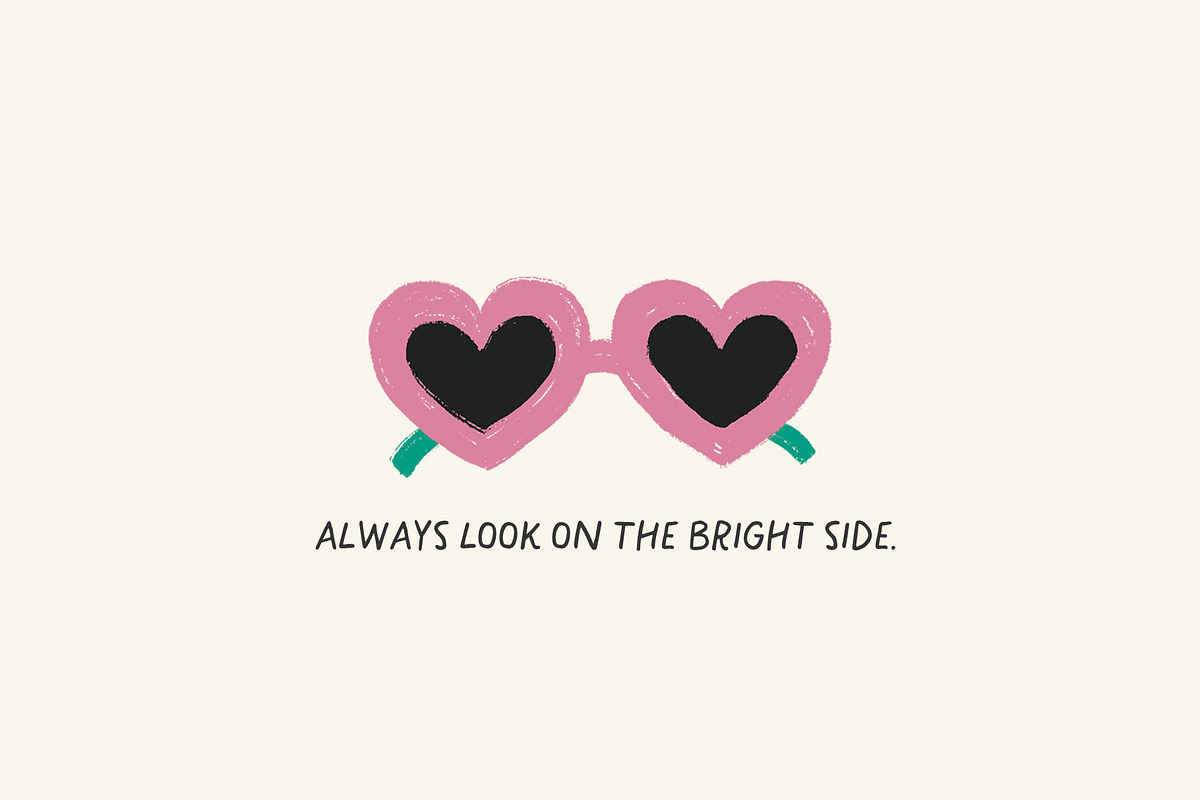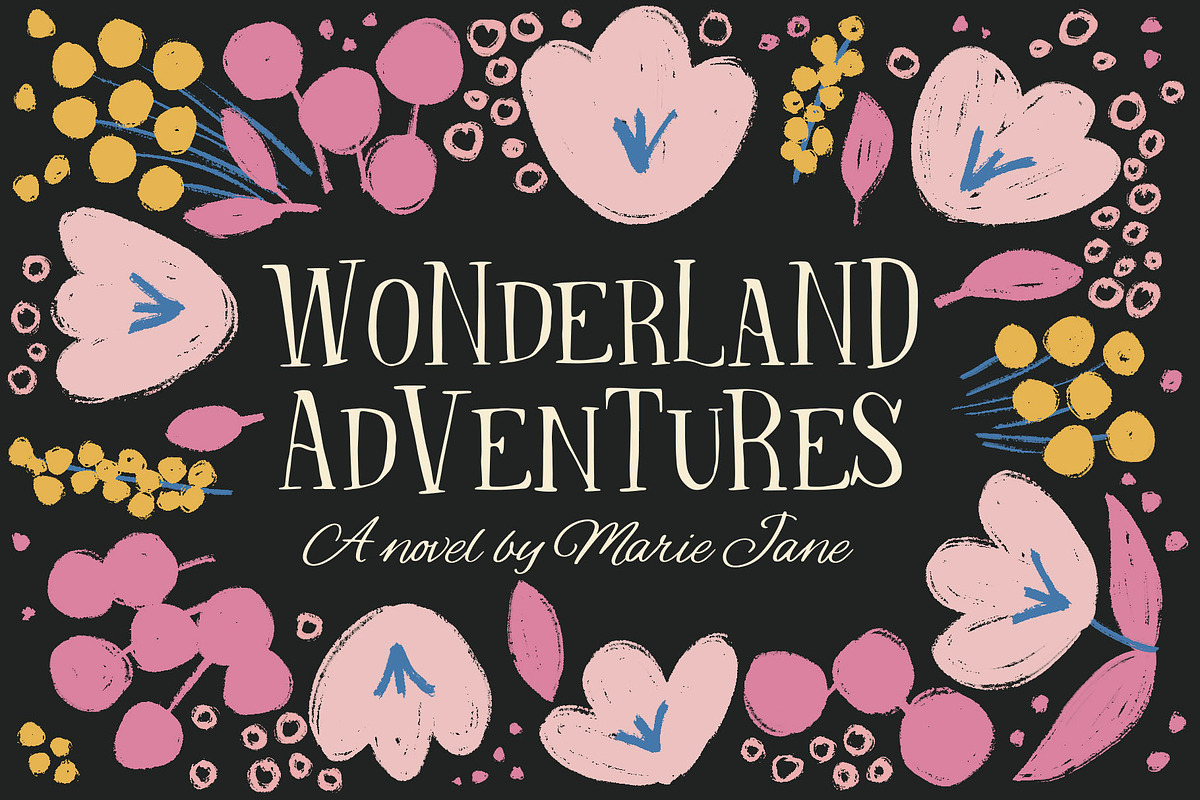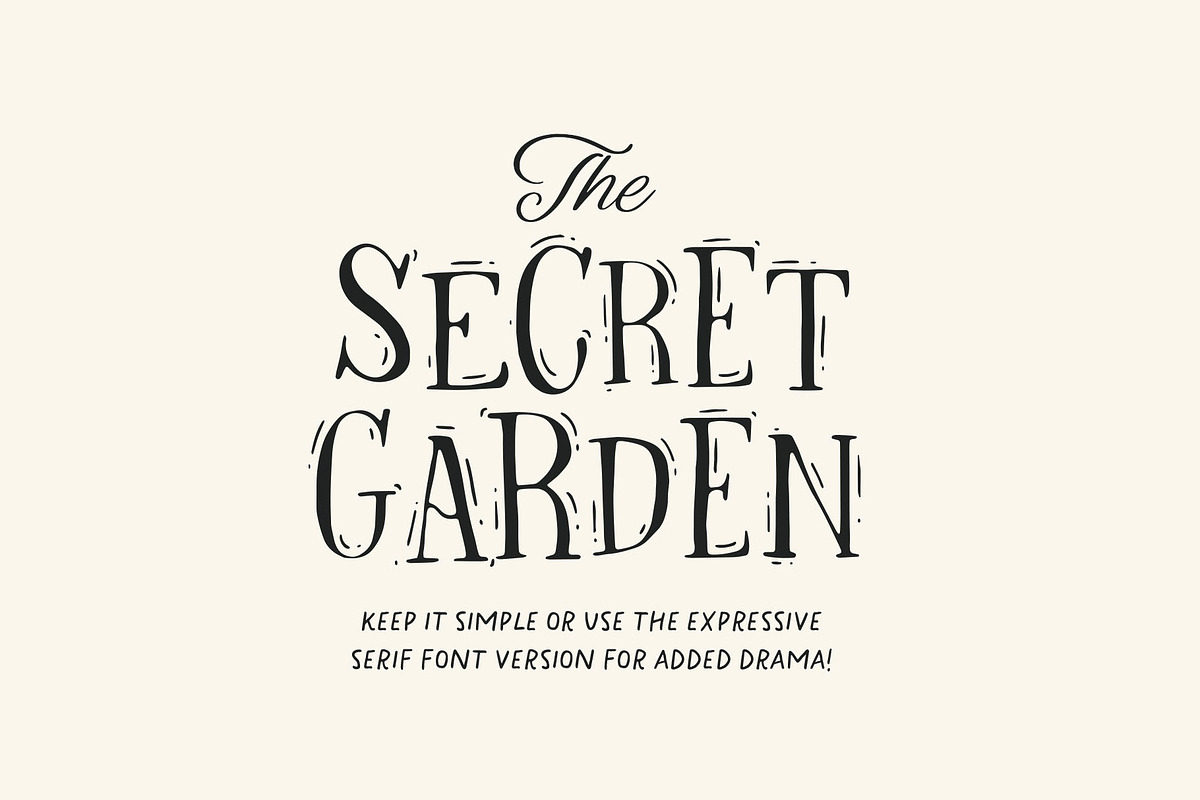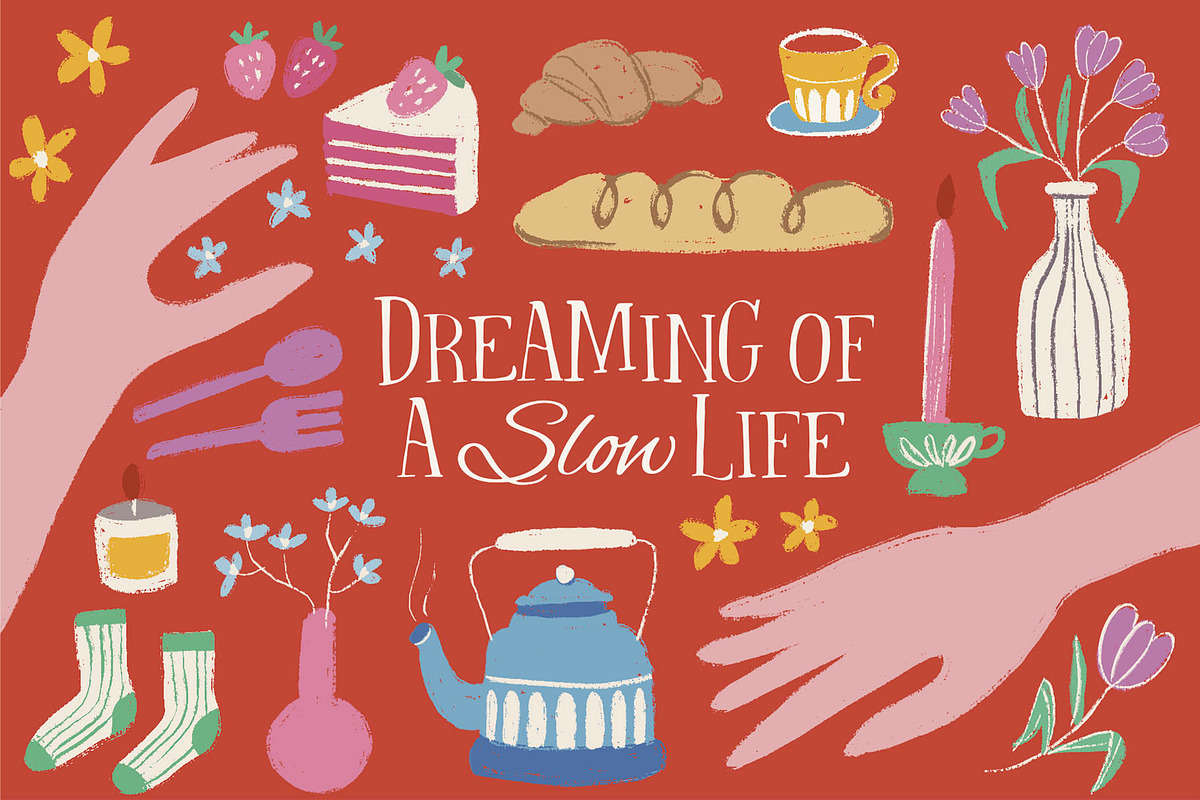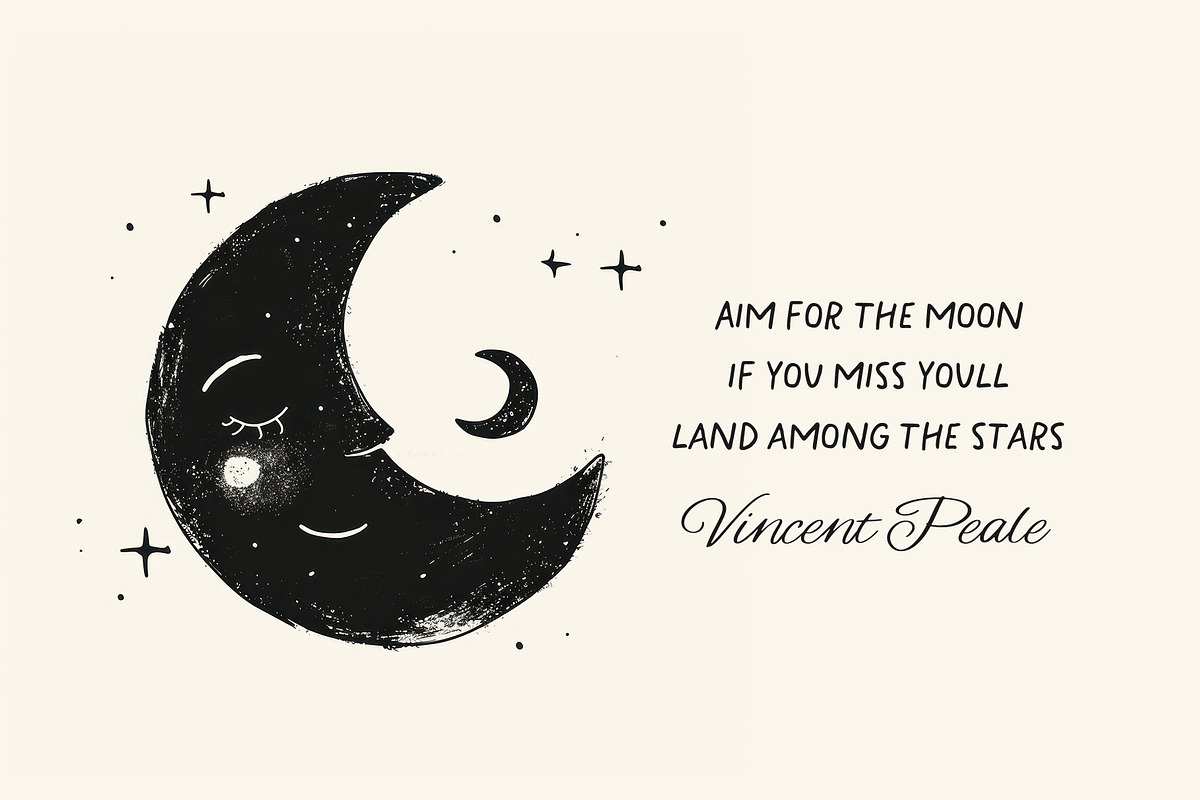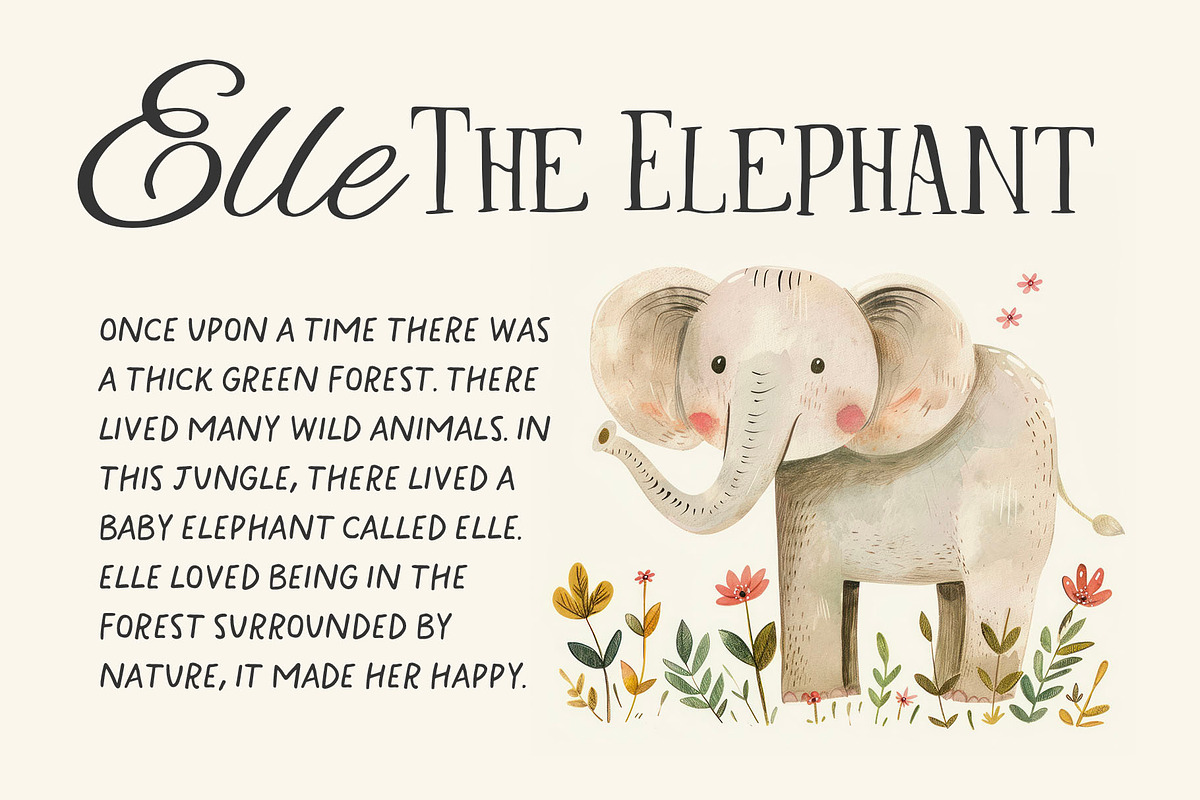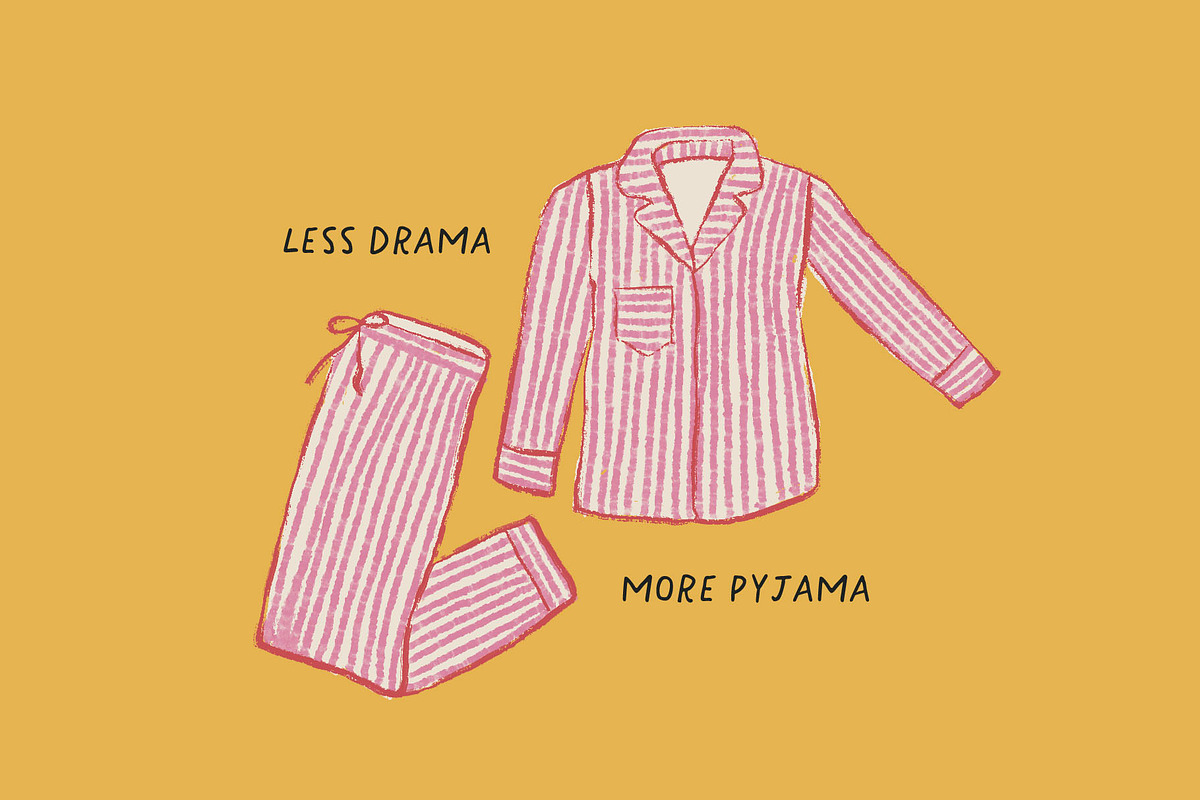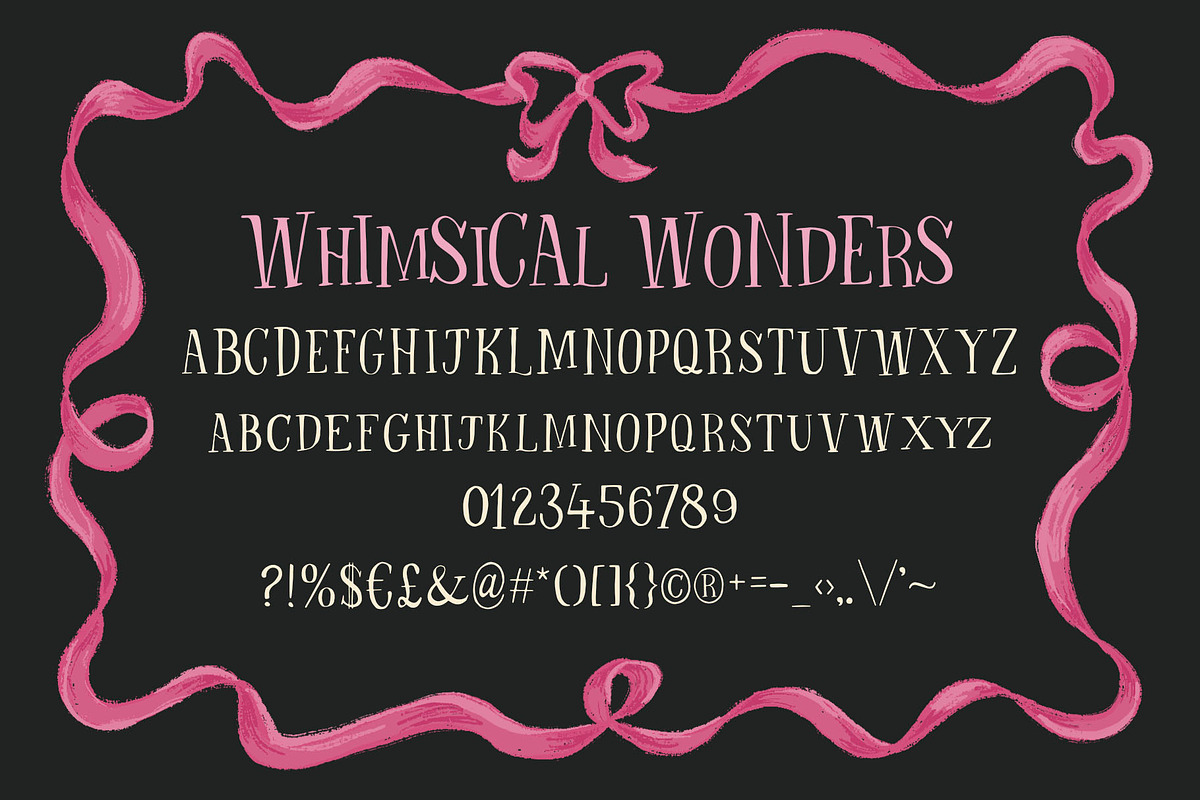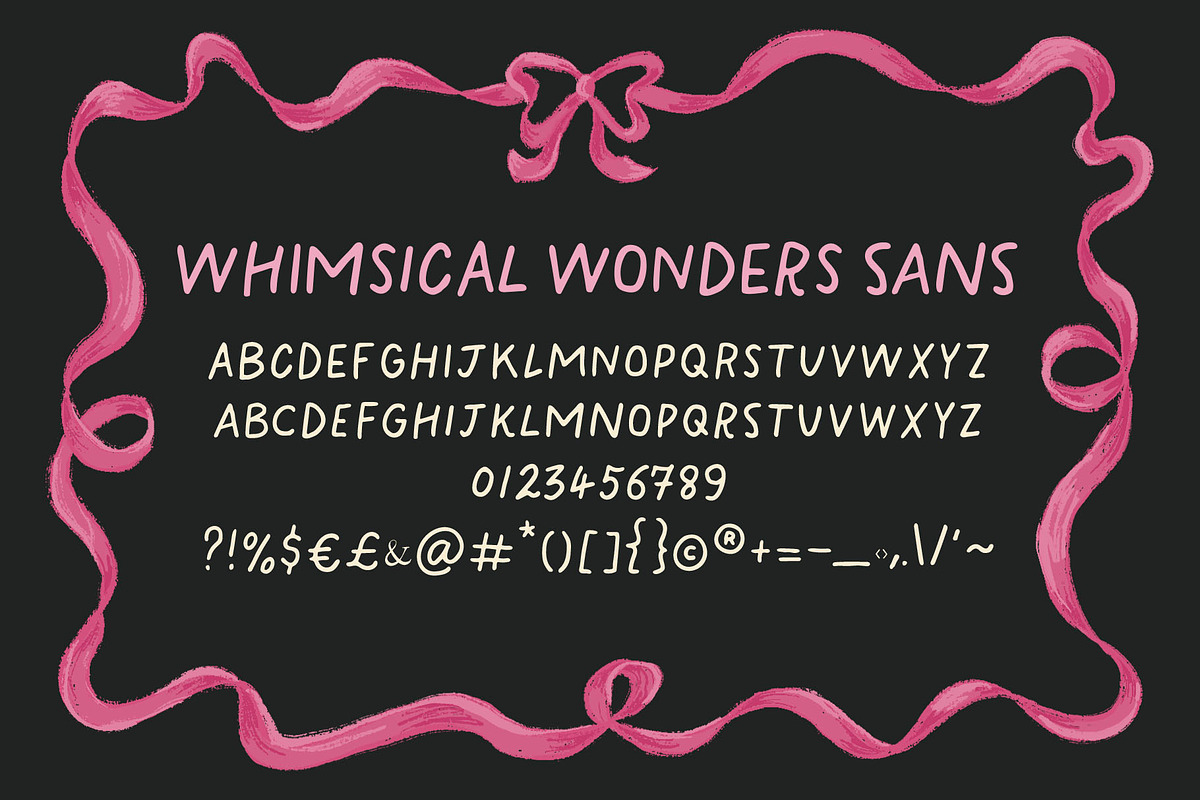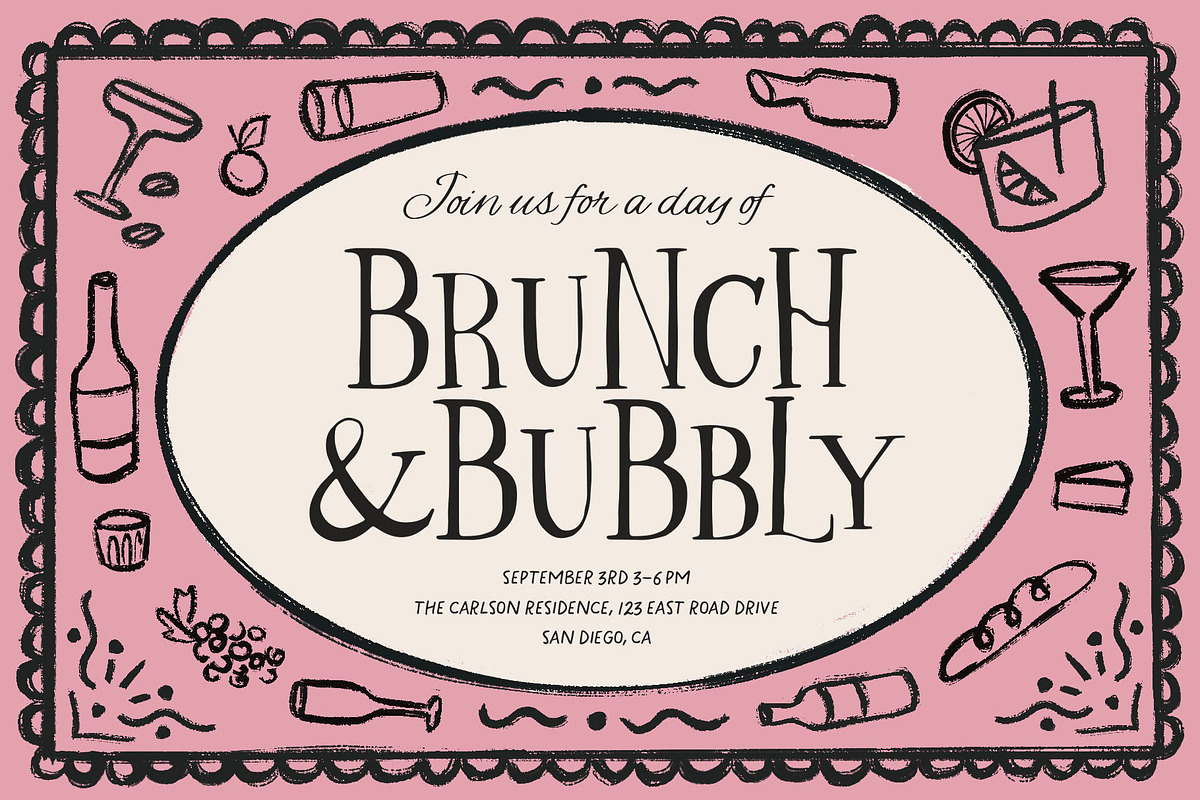
Whimsical Wonders Font Trio
Introducing Whimsical Wonders Font Trio! A lovingly handwritten font collection made to go hand in hand with illustrations! Suitable for picture books, greeting cards, invites, delightful packaging and more!
- Whimsical Wonders Serif - Regular
- Whimsical Wonders Serif - Expressive
- Whimsical Wonders Sans
- Whimsical Wonders Script